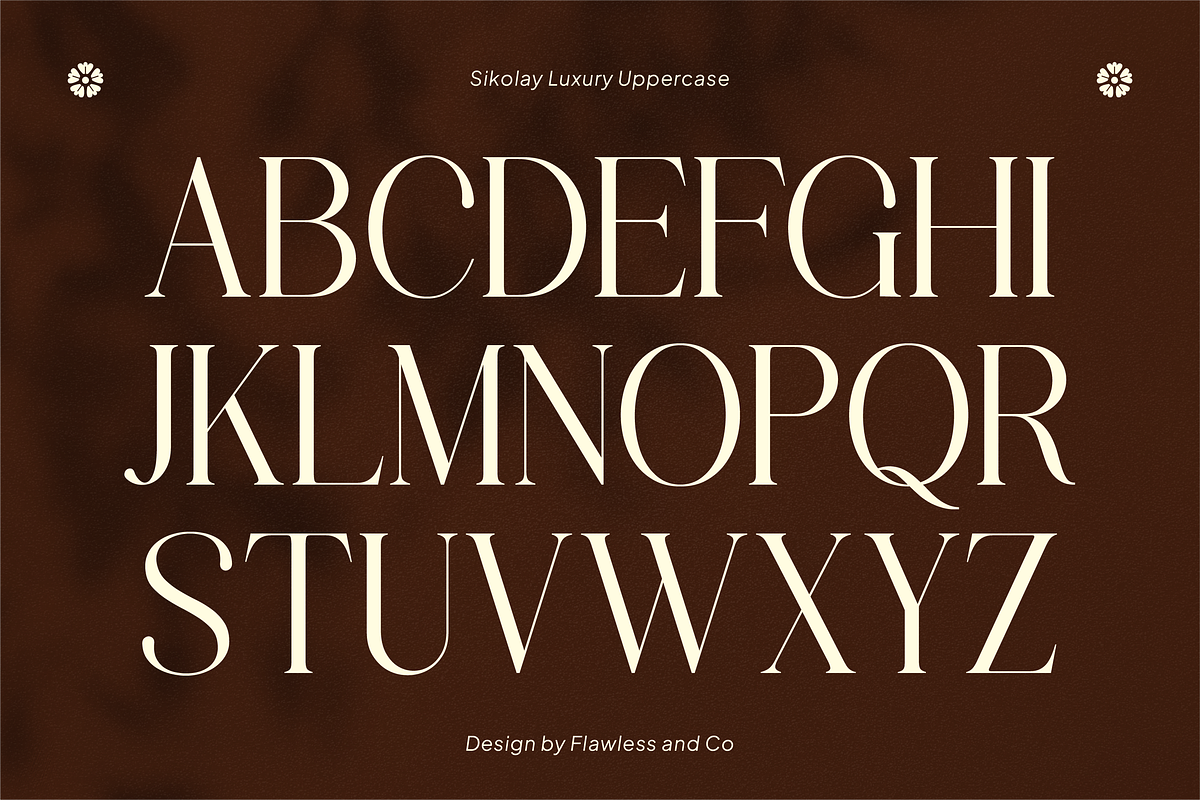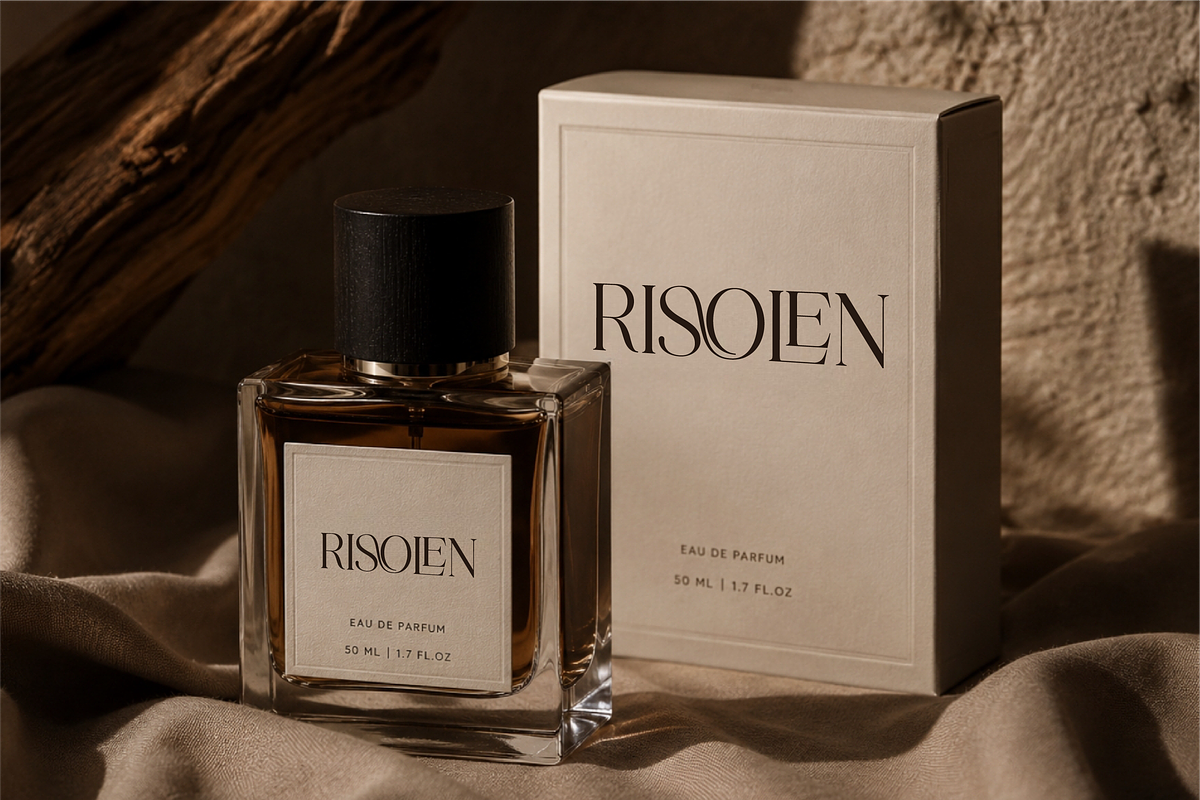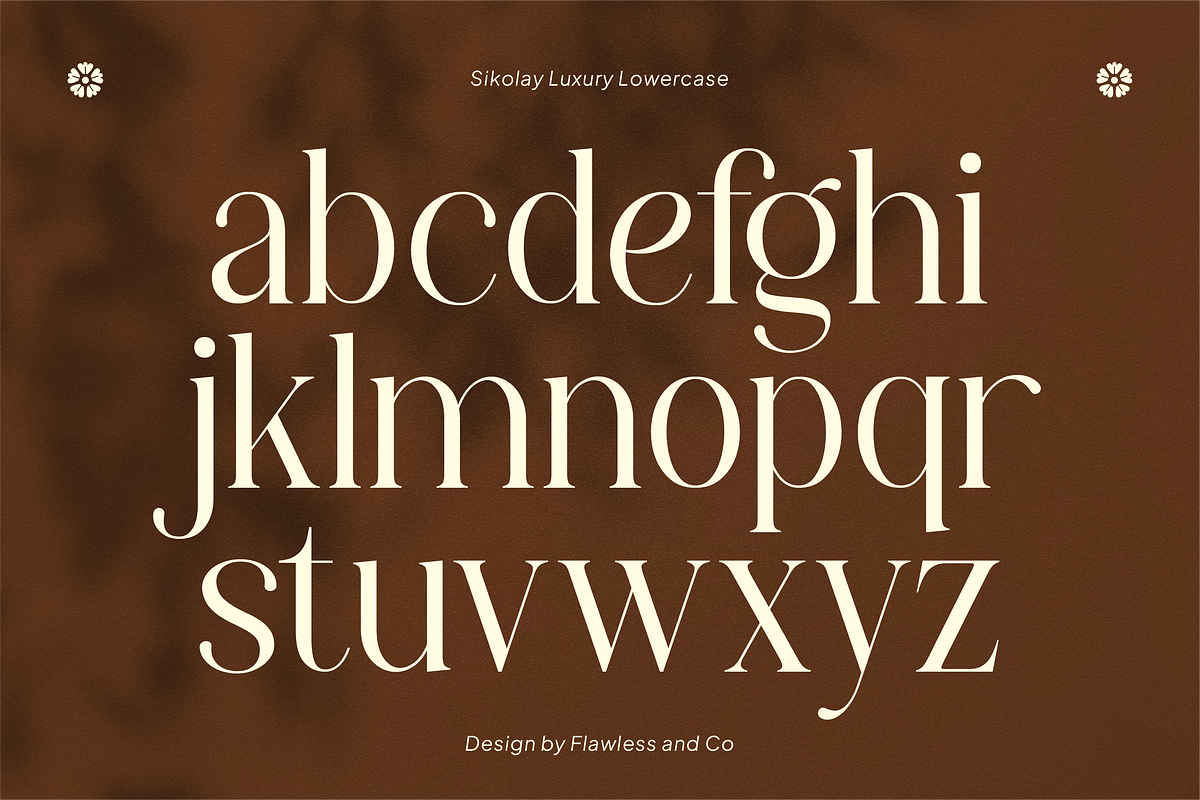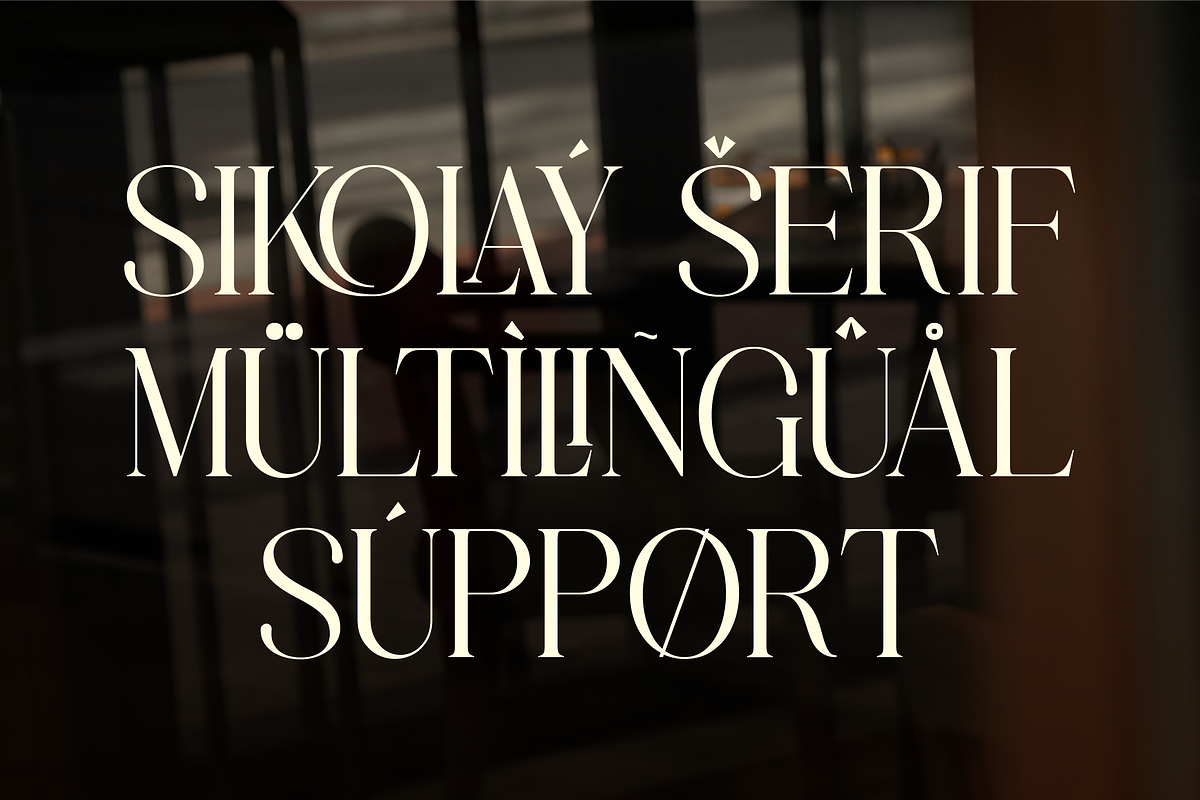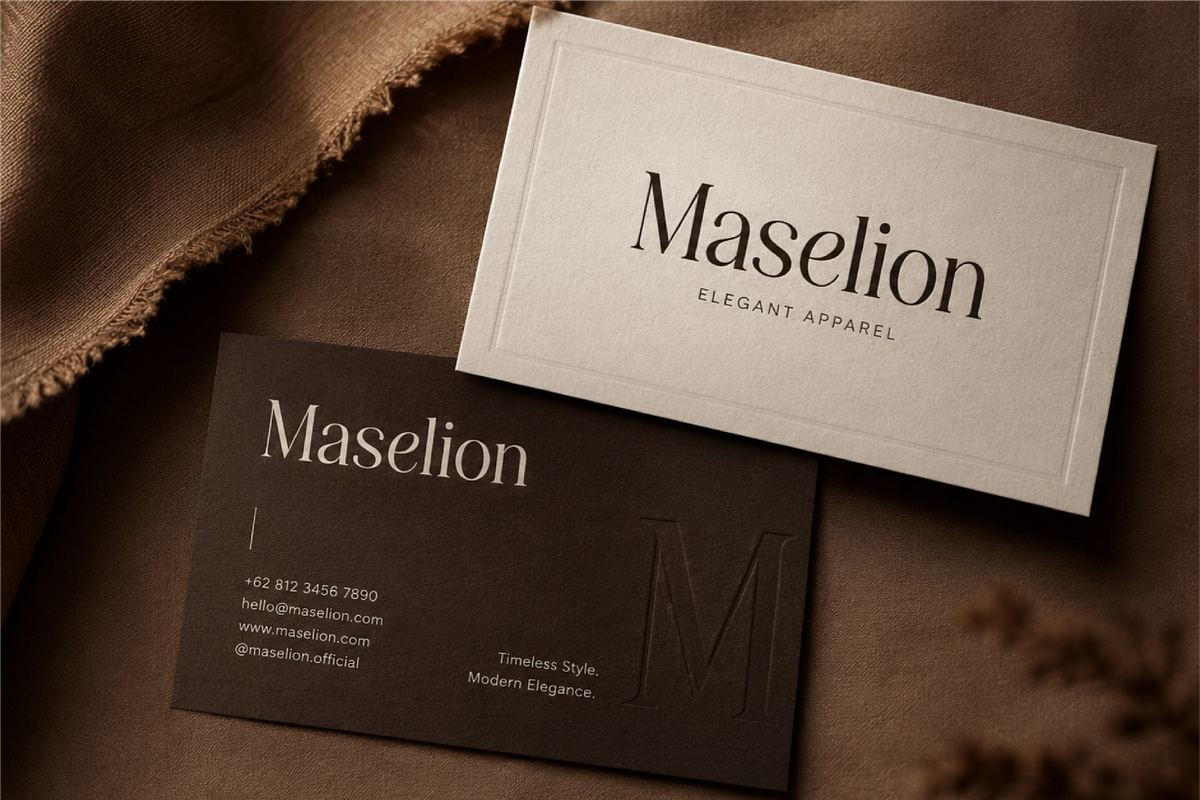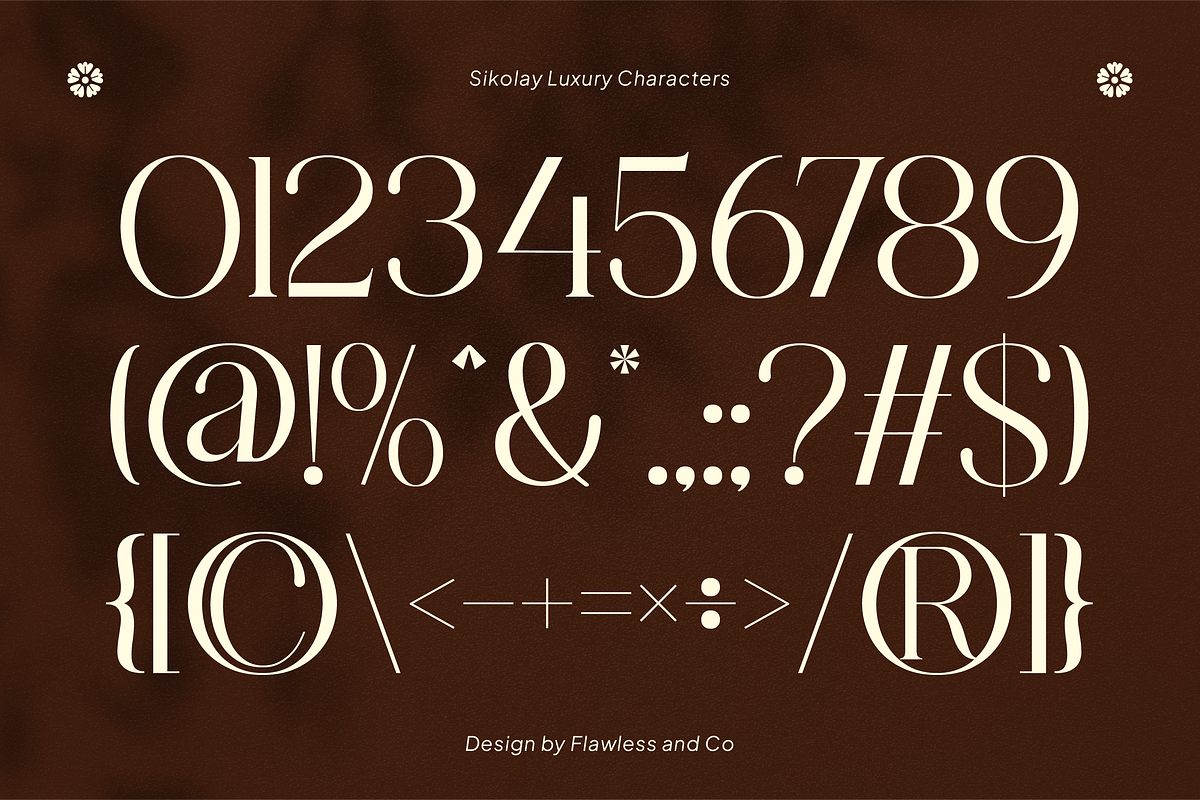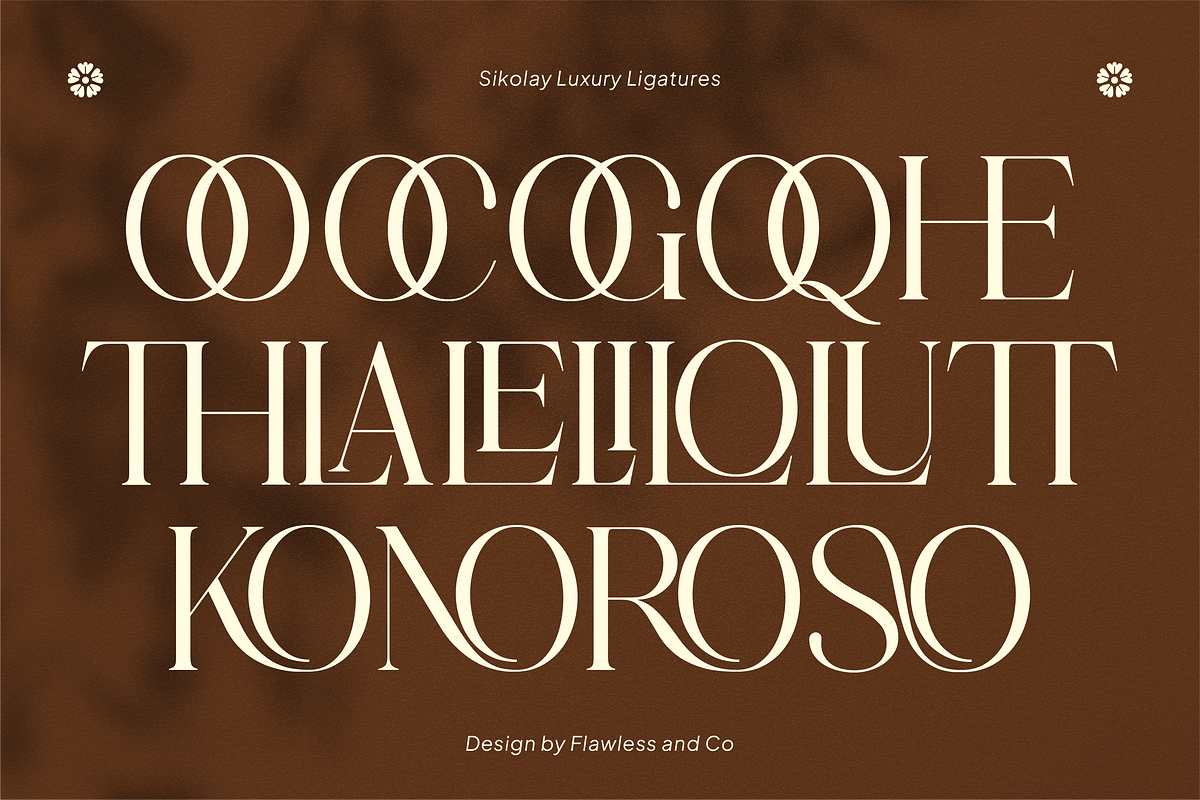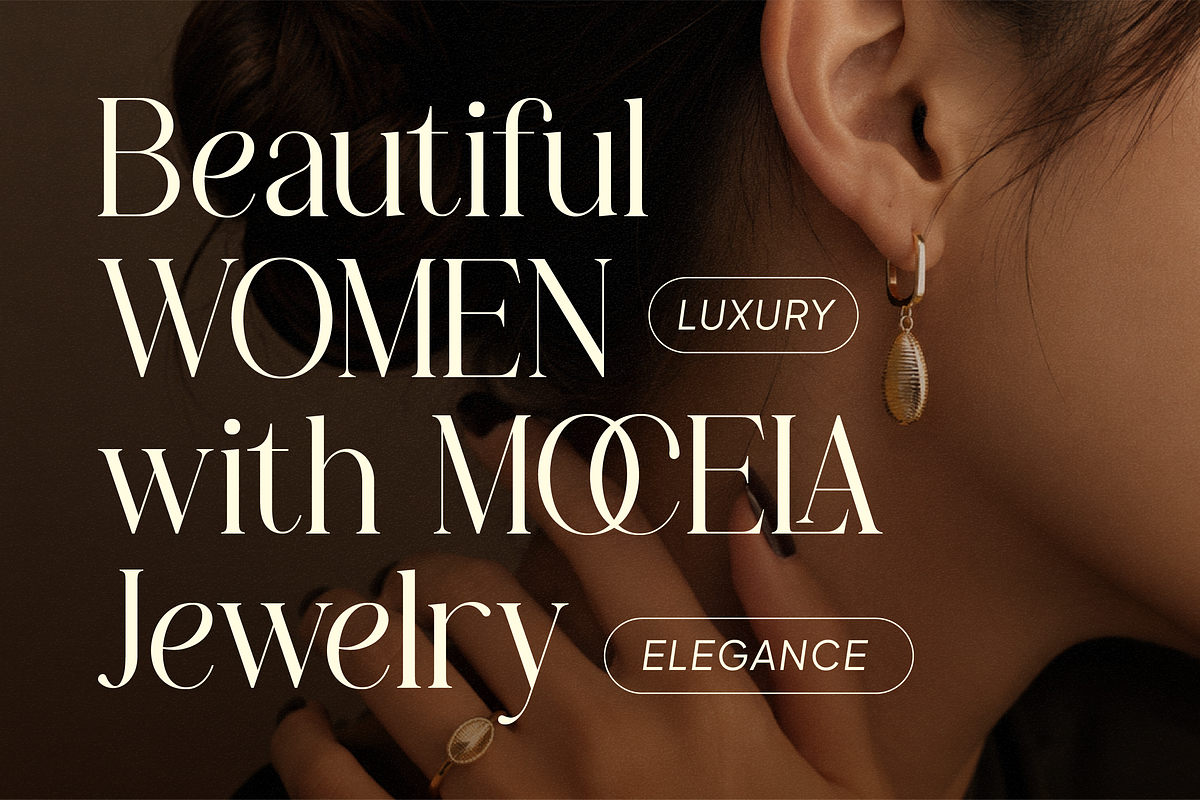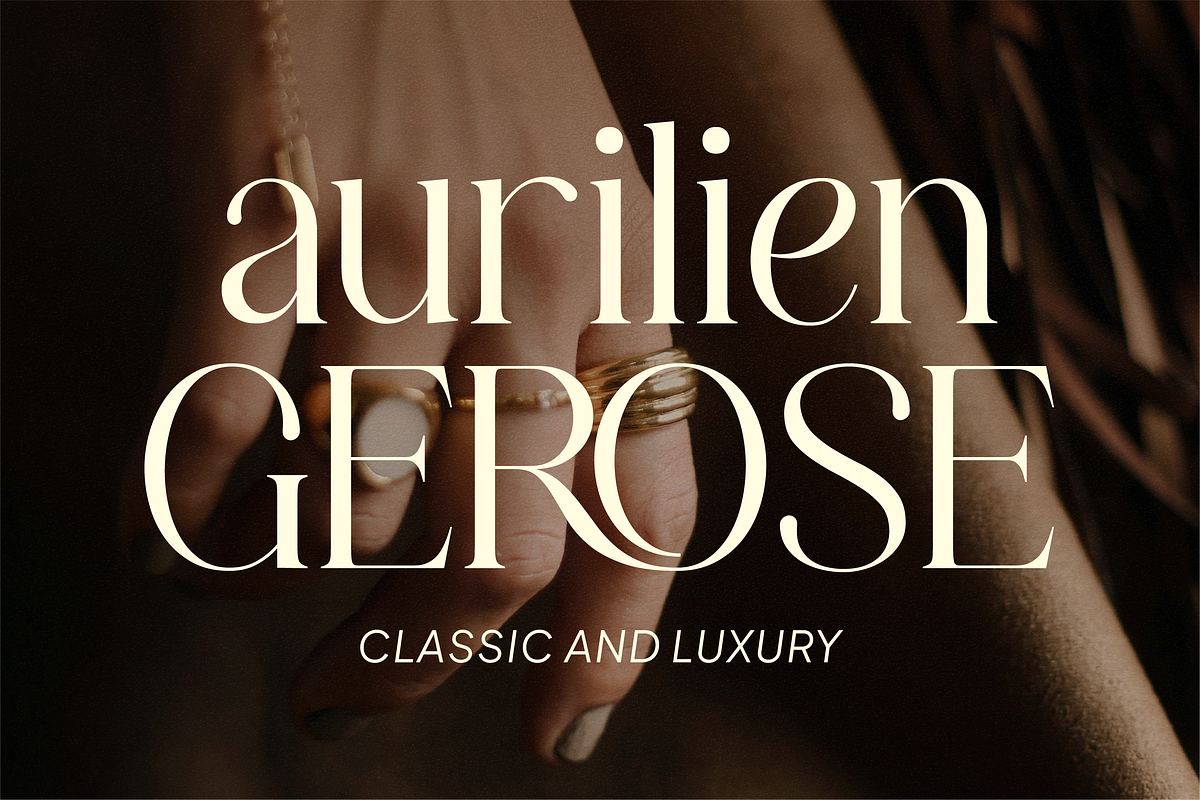
Sikolay - Elegant Luxury Serif Font
Sikolay is a refined luxury serif font that captures the essence of modern elegance and timeless sophistication. Designed with graceful serif details, striking high-contrast strokes, and beautifully sculpted letterforms, Sikolay delivers a distinguished visual identity that feels both premium and effortlessly stylish. Every character is carefully crafted to create a harmonious balance between classic typography and contemporary luxury.
Alternates & Ligatures
Who Should Use Sikolay?
Sikolay is ideal for designers, creative studios, luxury brands, boutique businesses, and entrepreneurs looking for a serif font that combines elegance with modern sophistication. It’s especially suited for projects that demand premium typography and a timeless visual identity.
Suitable For:
Luxury branding and logo design
Fashion and beauty branding
Editorial and magazine design
Premium packaging and product labels
Boutique and lifestyle businesses
Wedding invitations and stationery
Social media and marketing campaigns
Elegant display typography